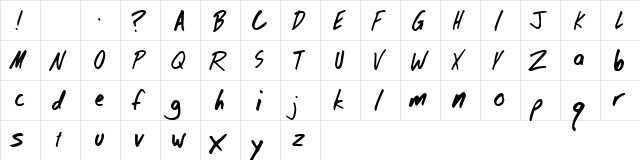
DobiType Regular
Design Context for DobiType Typeface
DobiType is a composed and adaptable typeface that performs quietly and consistently across a wide range of design contexts.